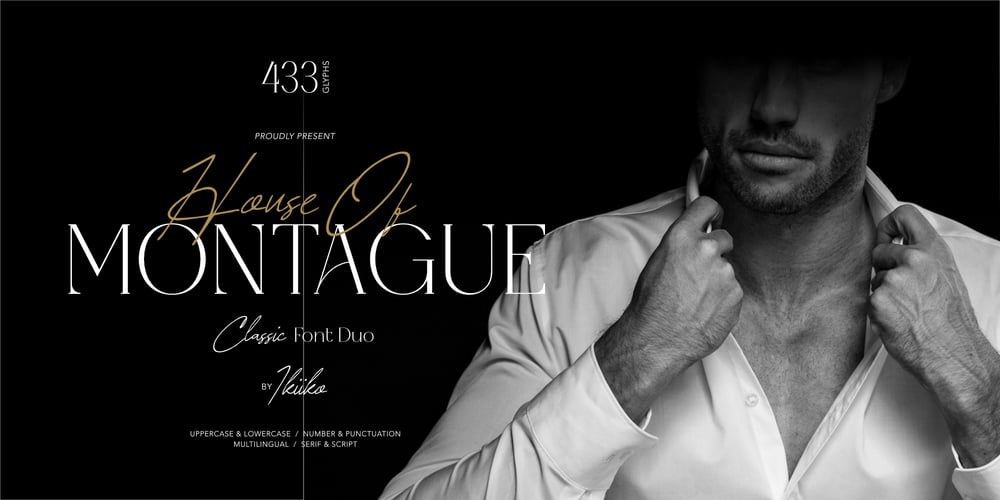
House of Montague Font Family was designed by Wahyu Eka Prasetya, Andhika Pradana and published by IKIIKOWRK. House of Montague contains 2 styles and family package options. Introducing House of Montague – Classic Font Duo, created by ikiiko.House of Montague is a traditional font for the classic serif type with the addition of a script type. A simple font, with a thin size, adds an elegant and classy impression. This typeface is perfect for an elegant logo, branding, travel promotion, layout magazine, beauty product, packaging product, quotes, or simply as a stylish text overlay to any background image.What’s included? Regular & Script Uppercase & Lowercase Number & Punctuation Multilingual Support Enjoy our font and if you have any questions, you can contact us by email : ikiikowrk@gmail.com